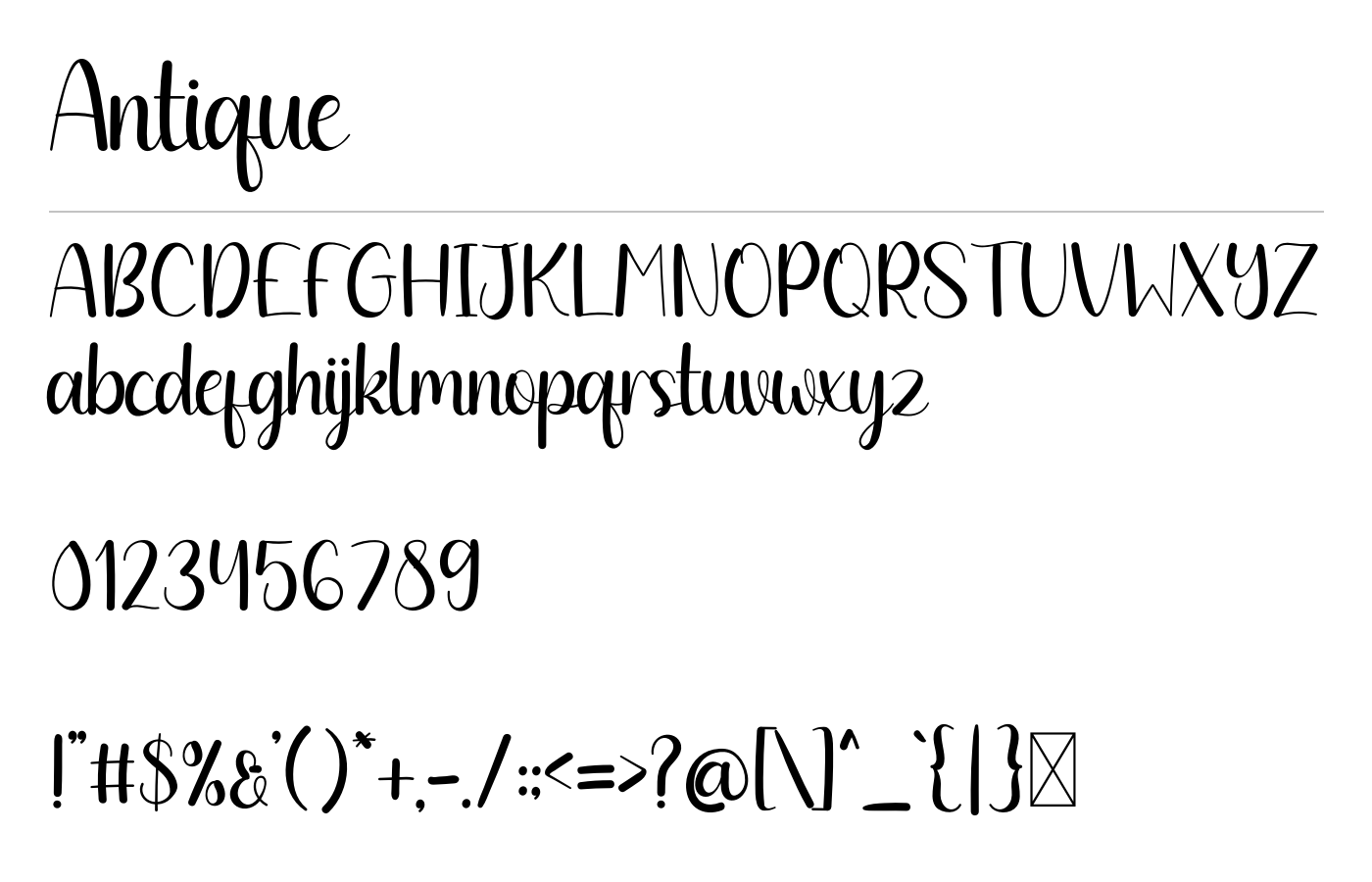
Antique Font is a playful and elegant script typeface with a handwritten feel, featuring smooth, flowing strokes and a lively mix of thin and bold lines. Its unique character shapes and friendly style make it perfect for creative branding, invitations, and casual yet stylish headlines. This font adds warmth and personality, ideal for projects that want a touch of charm and approachability.
Antique Font